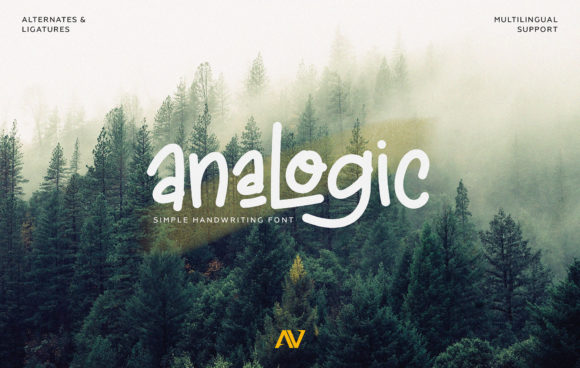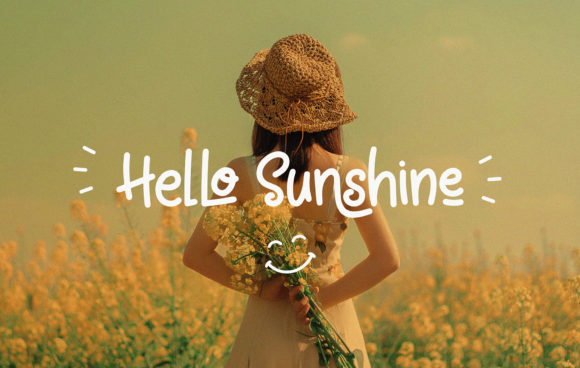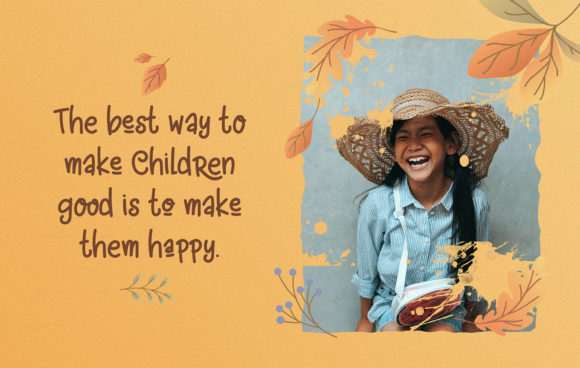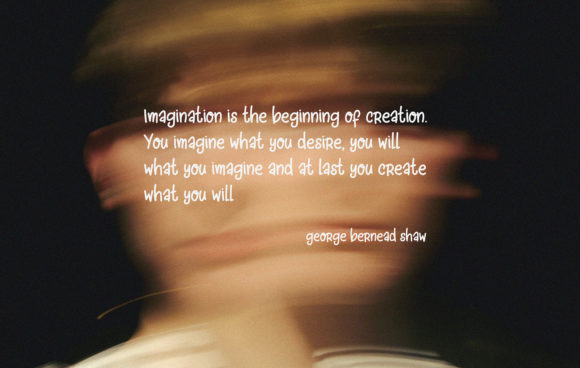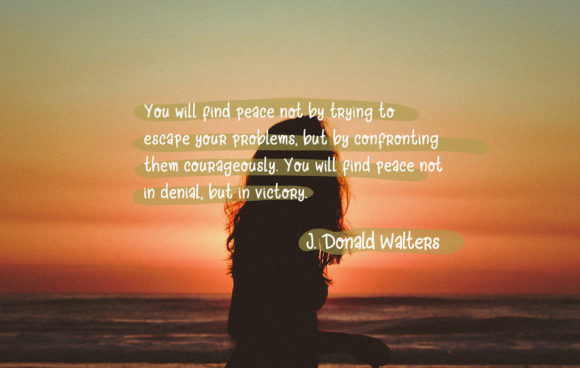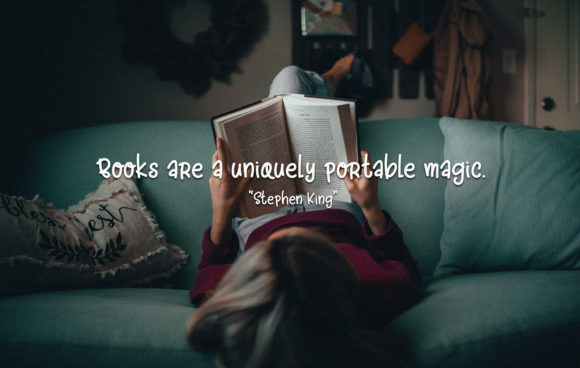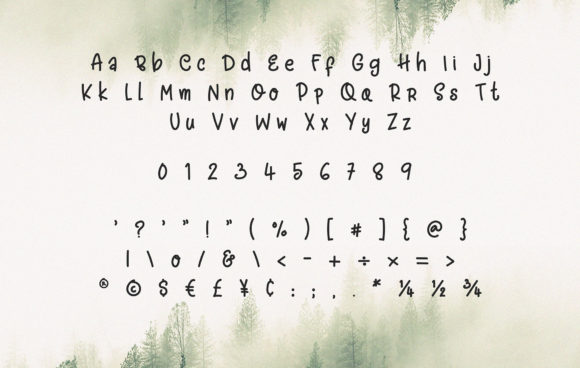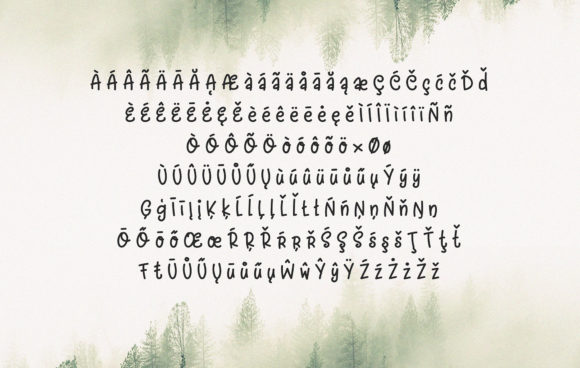
Analogic Font
About Analogic Font
Analogic is a simple, quirky and adaptable handwritten font. Its informal style and casual vibe will make this font a go-to choice for each of the creations that require a relaxed touch.